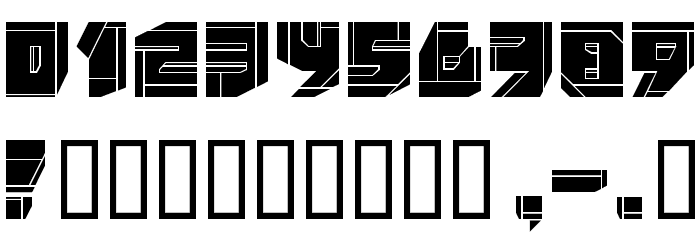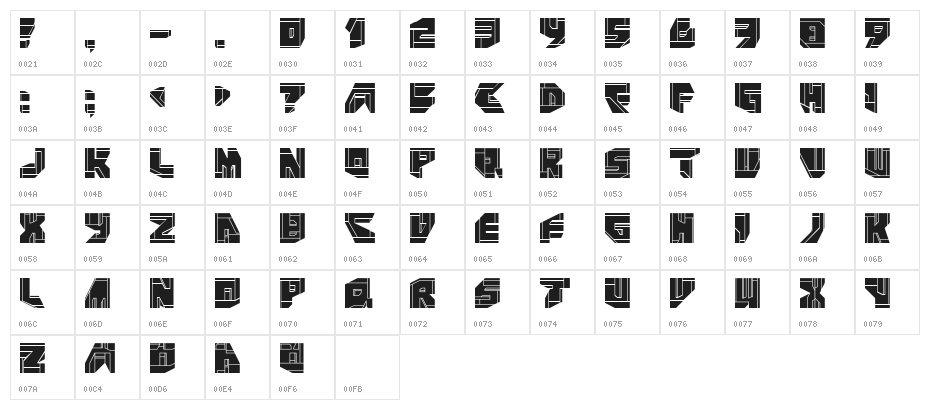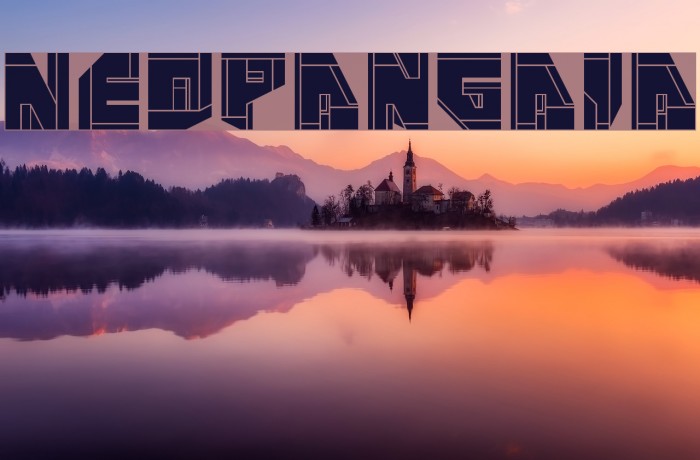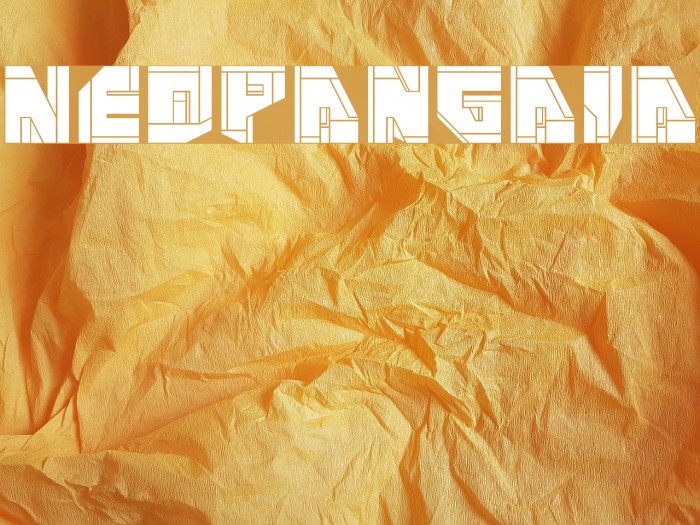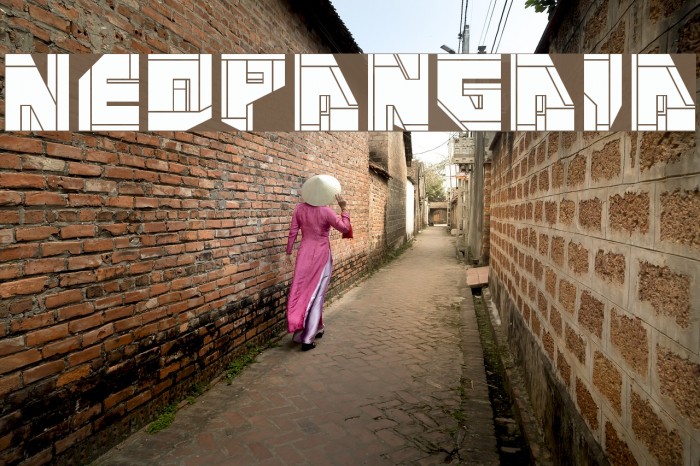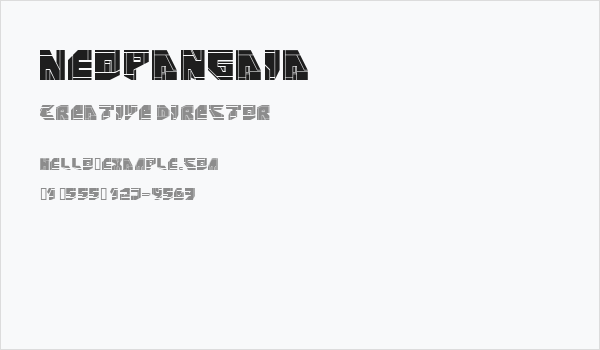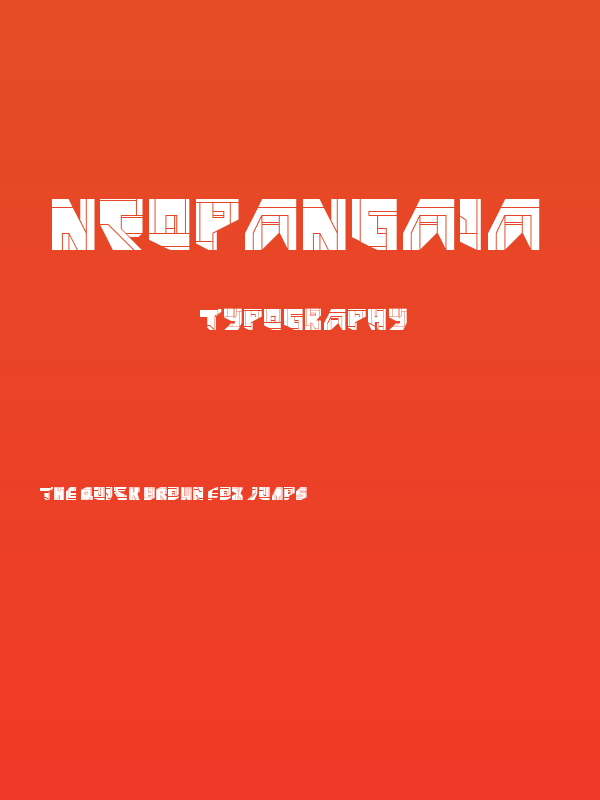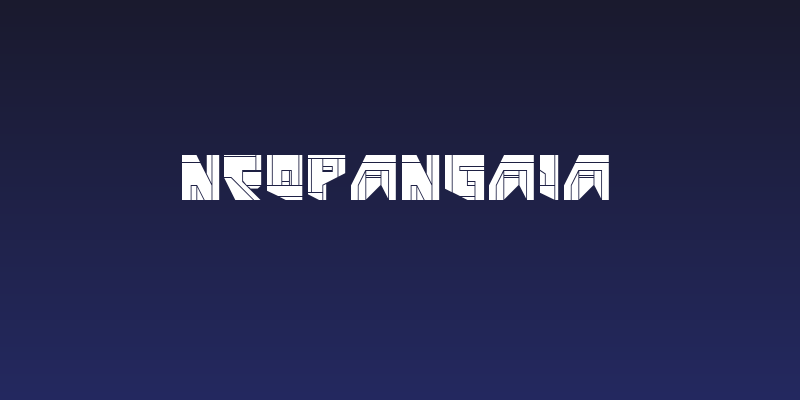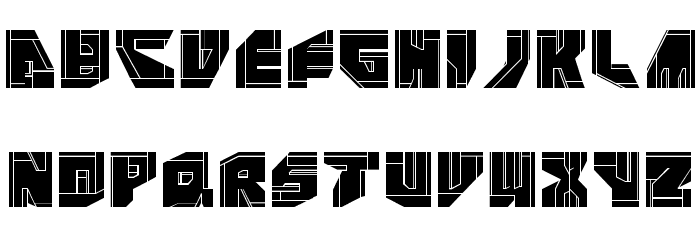
NeoPangaia Font
NeoPangaia Description
This font features a bold, futuristic design with geometric shapes and sharp angles. Each character is constructed with a series of lines and blocks, creating a sense of depth and dimension. The uppercase and lowercase letters maintain a consistent style, with the lowercase being slightly more compact. Numbers and special characters follow the same design principles, ensuring uniformity across all glyphs. The font's unique structure makes it ideal for projects that require a modern and edgy aesthetic.
| Proposed Projects | Ideal for sci-fi themed posters, video game titles, tech branding, and modern art installations. |